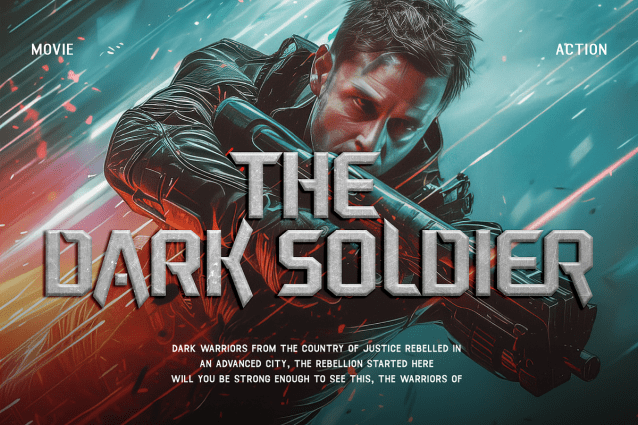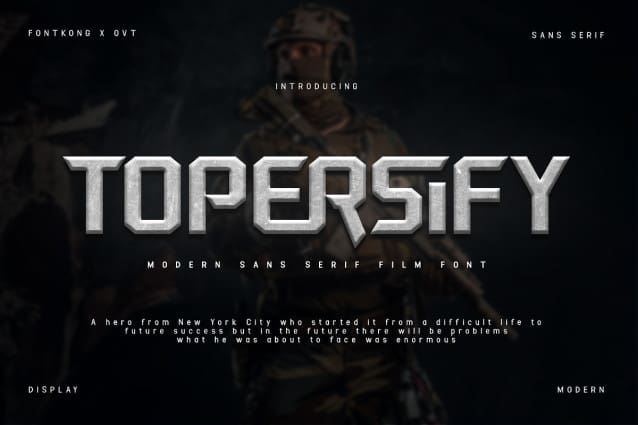
Topersify Font
Topersify Font, a modern sans serif font inspired by the bold typography seen in film titles. With its sleek lines and cinematic flair, Topersify adds a touch of drama and excitement to your designs.
Crafted with precision and style, Topersify captures the essence of the silver screen with its clean and contemporary aesthetic. Whether you’re creating movie posters, film credits, or promotional materials, this font commands attention and sets the scene for cinematic greatness.
Featuring uppercase letters, numbers, and punctuation marks, Topersify Font offers versatility and flexibility for all your film-related projects. Its bold and impactful presence ensures that your typography stands out on the big screen and beyond.
Lights, camera, typography! Elevate your designs with the captivating allure of Topersify and let your creativity shine like a Hollywood star.